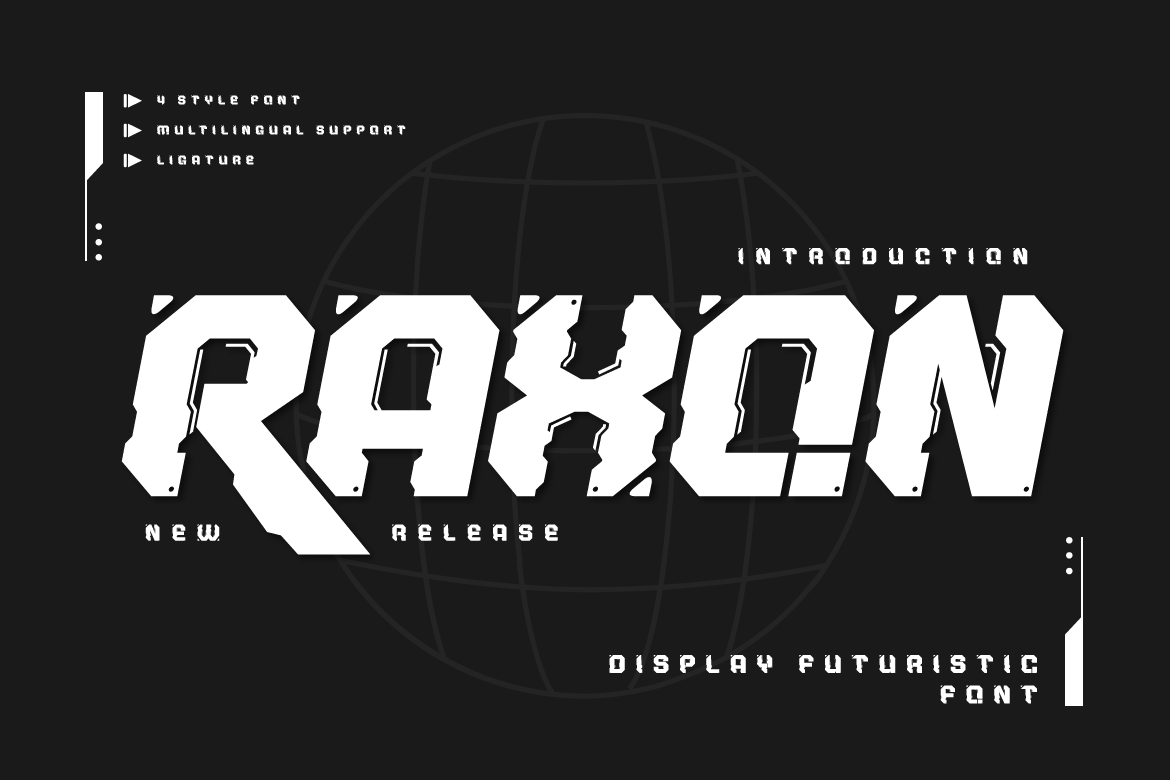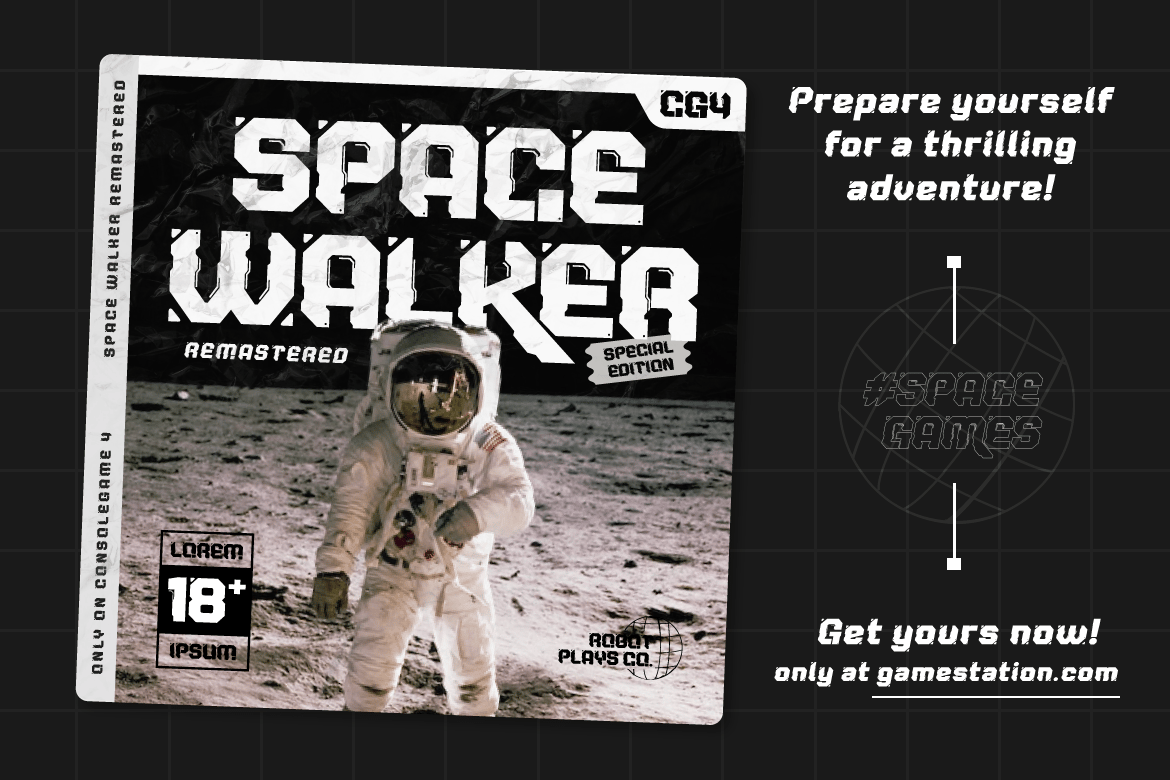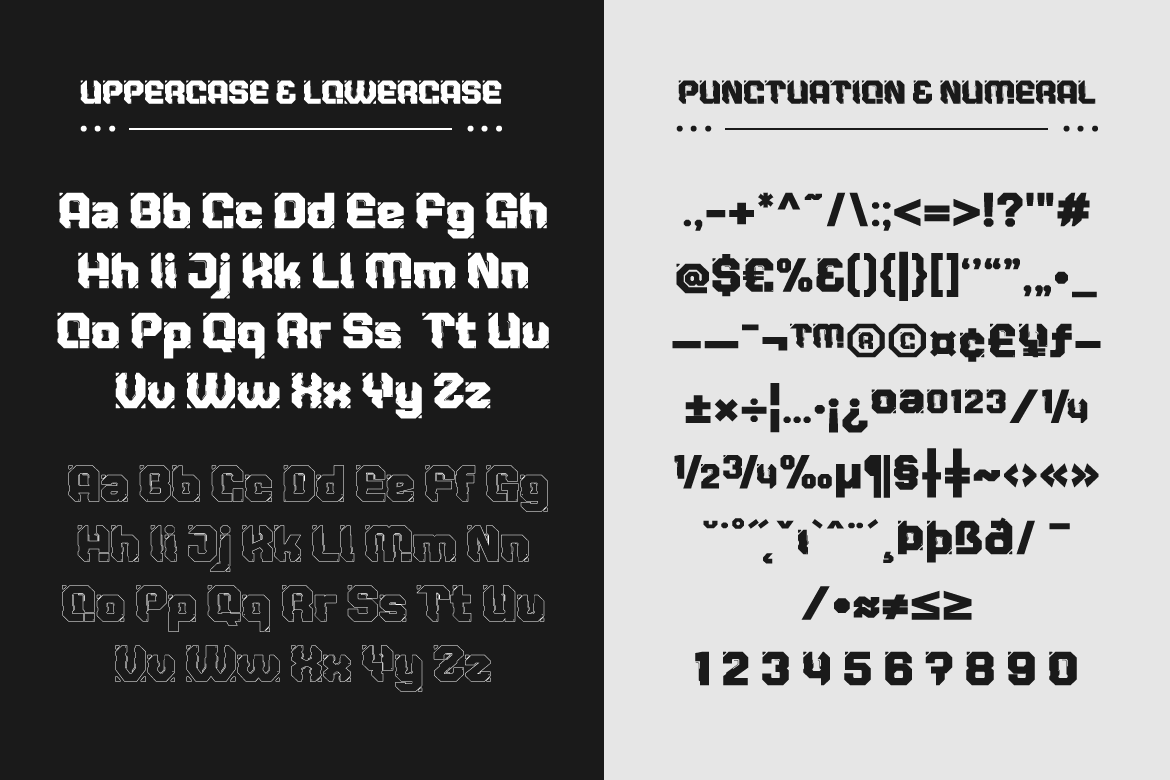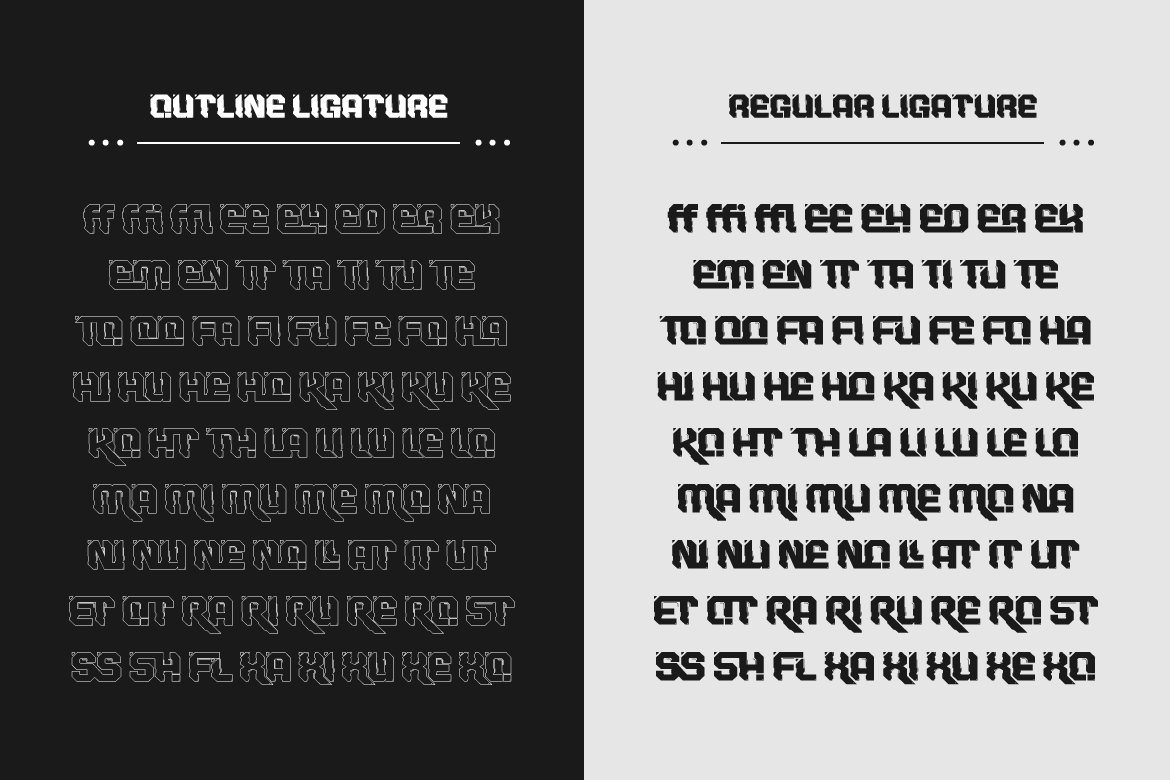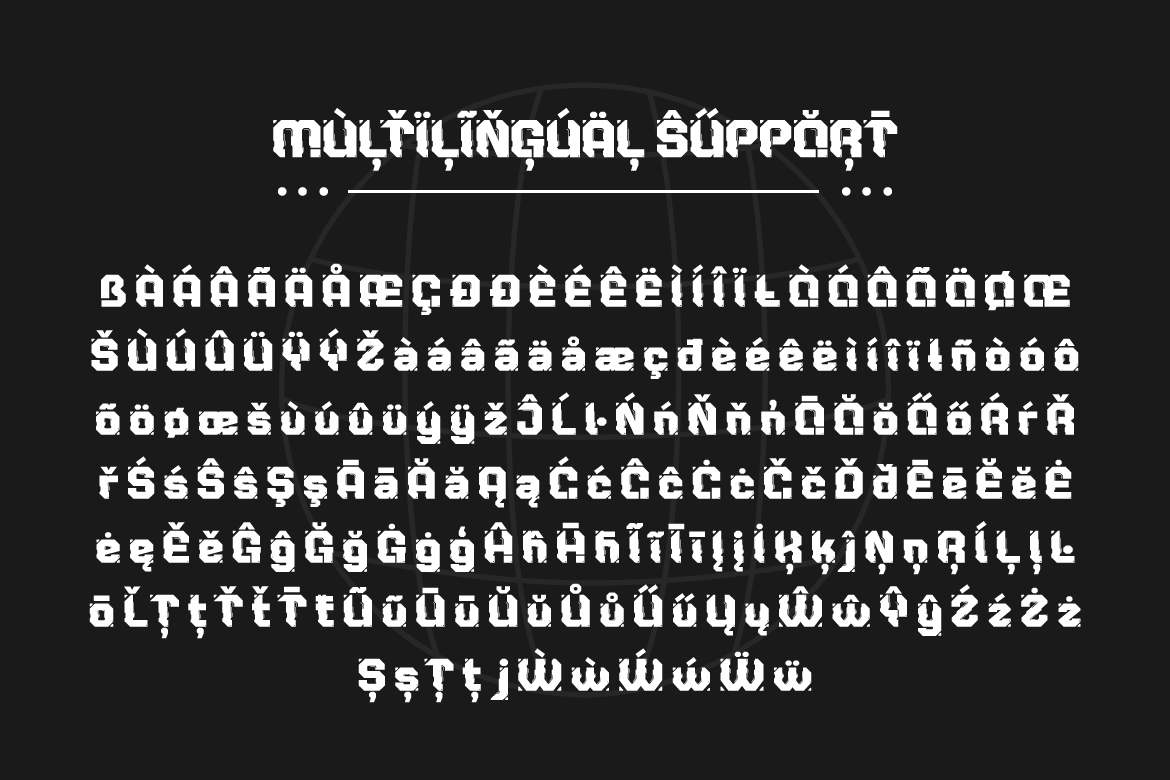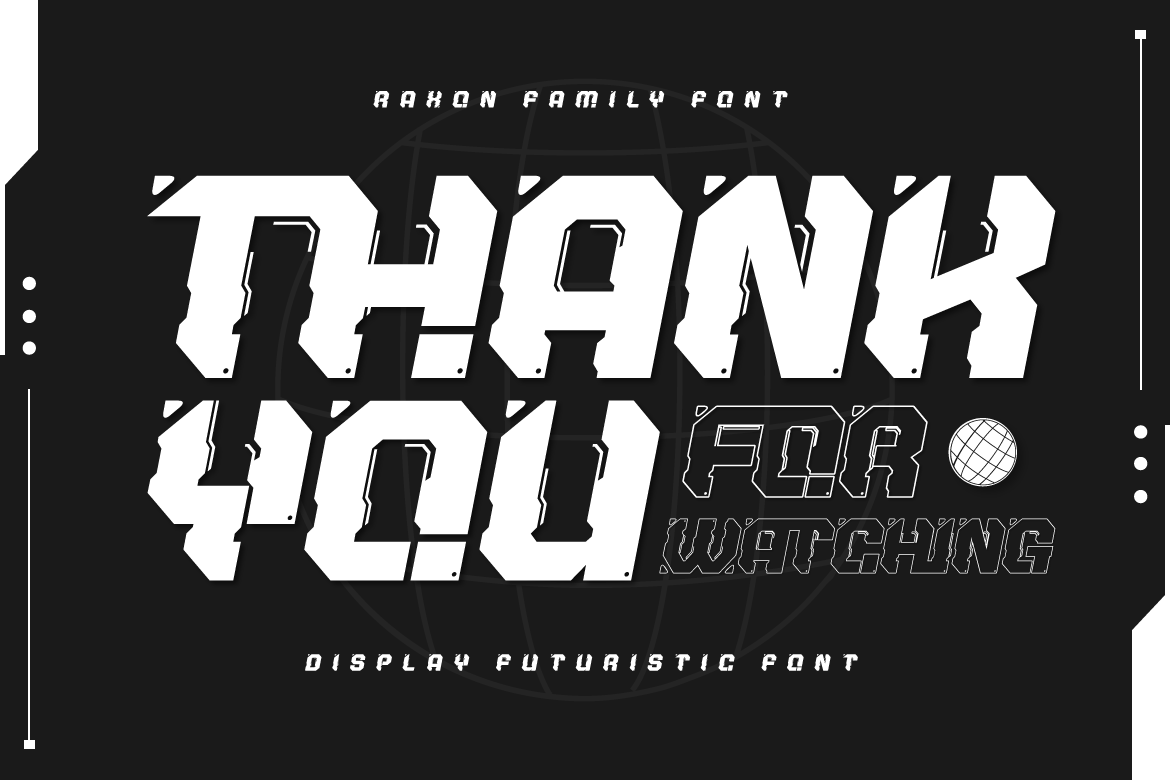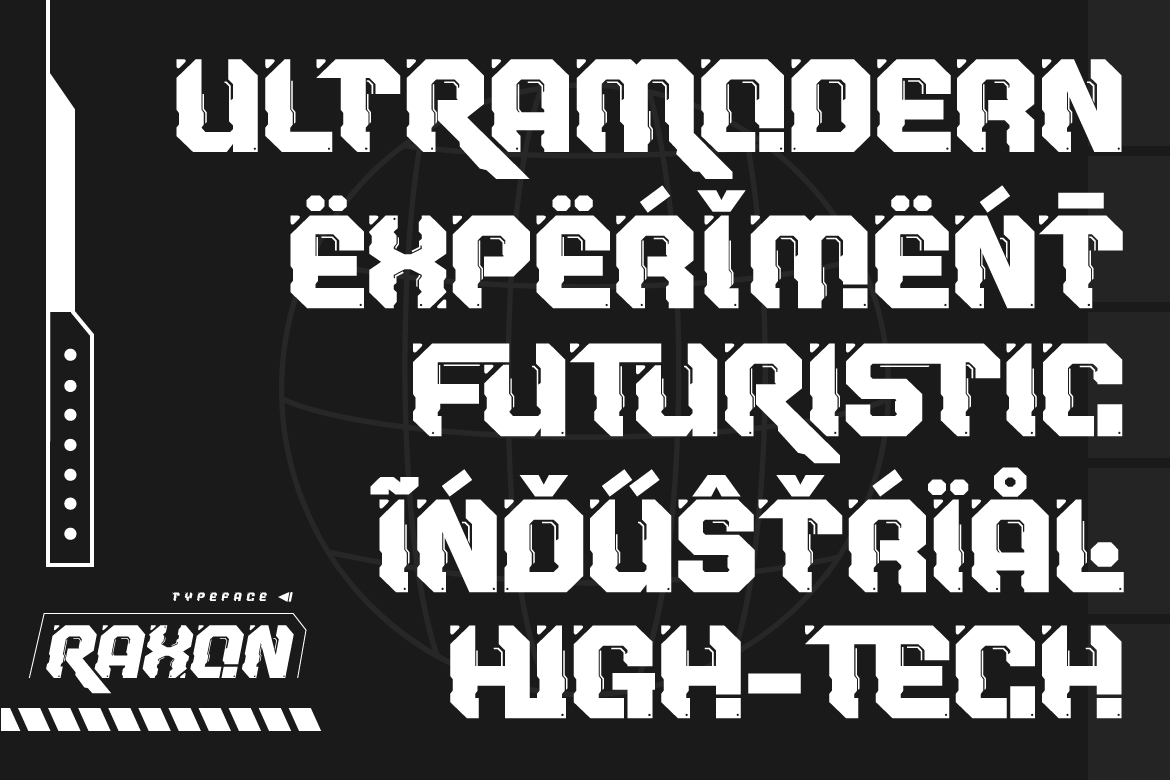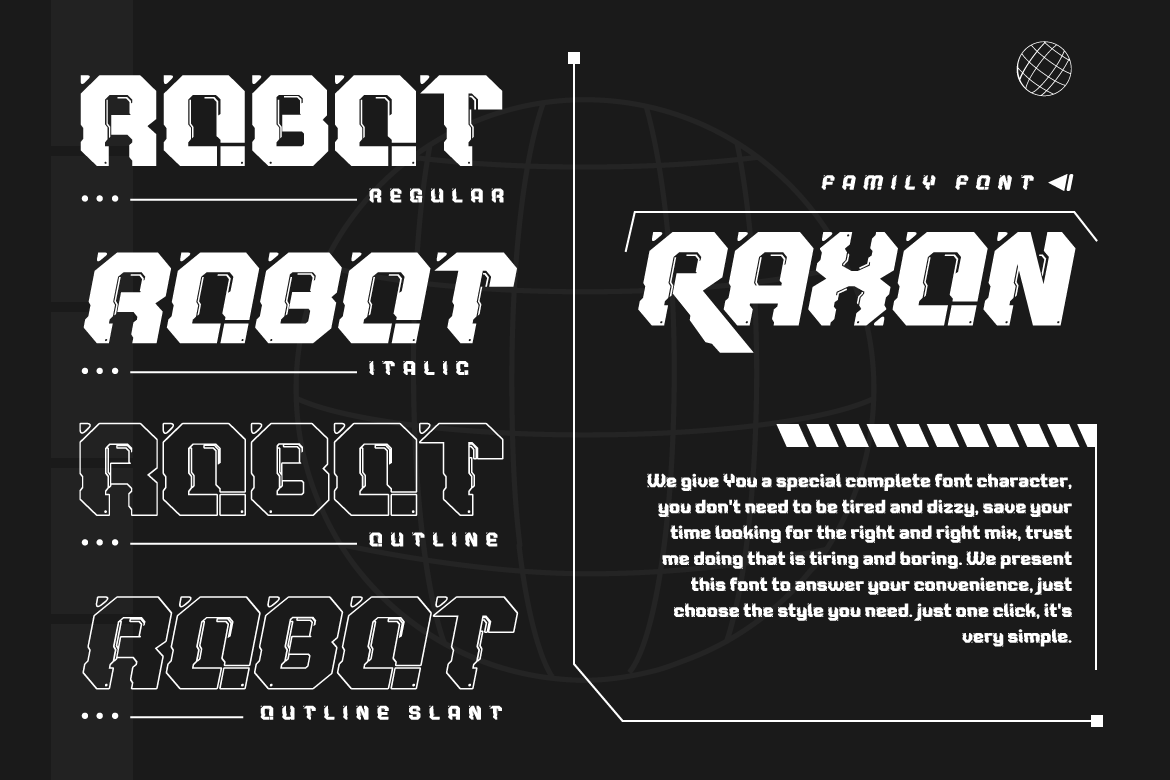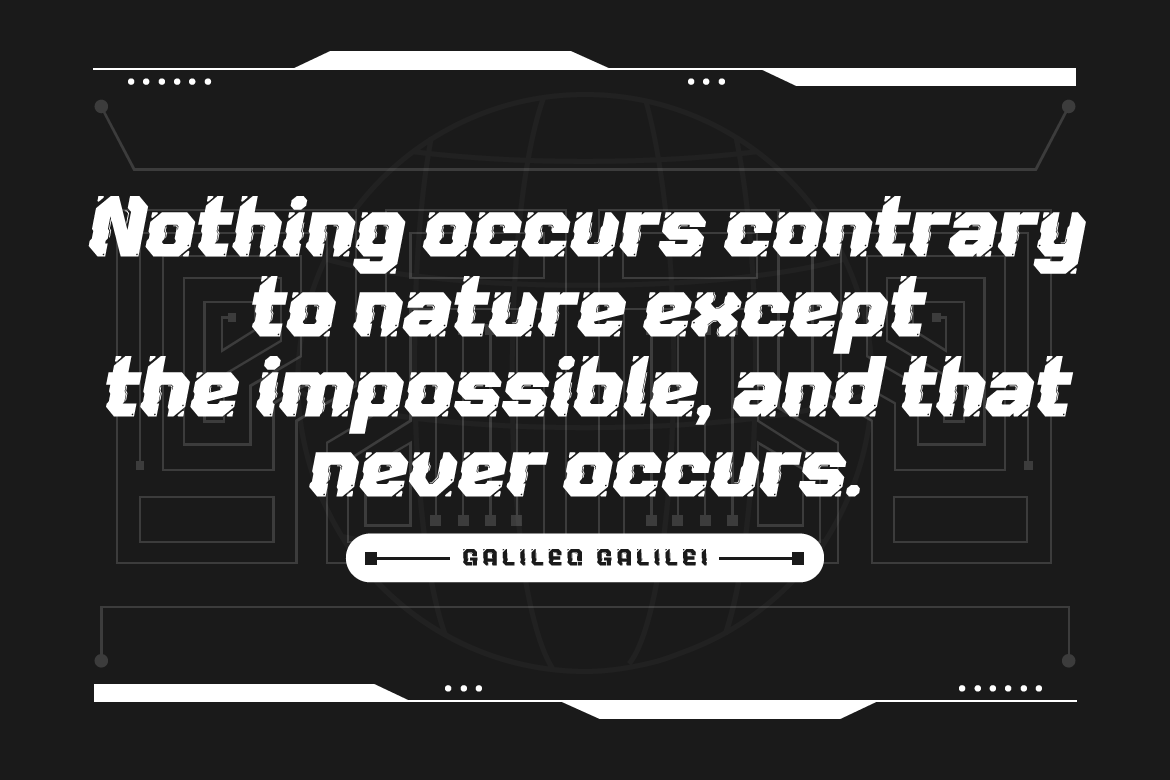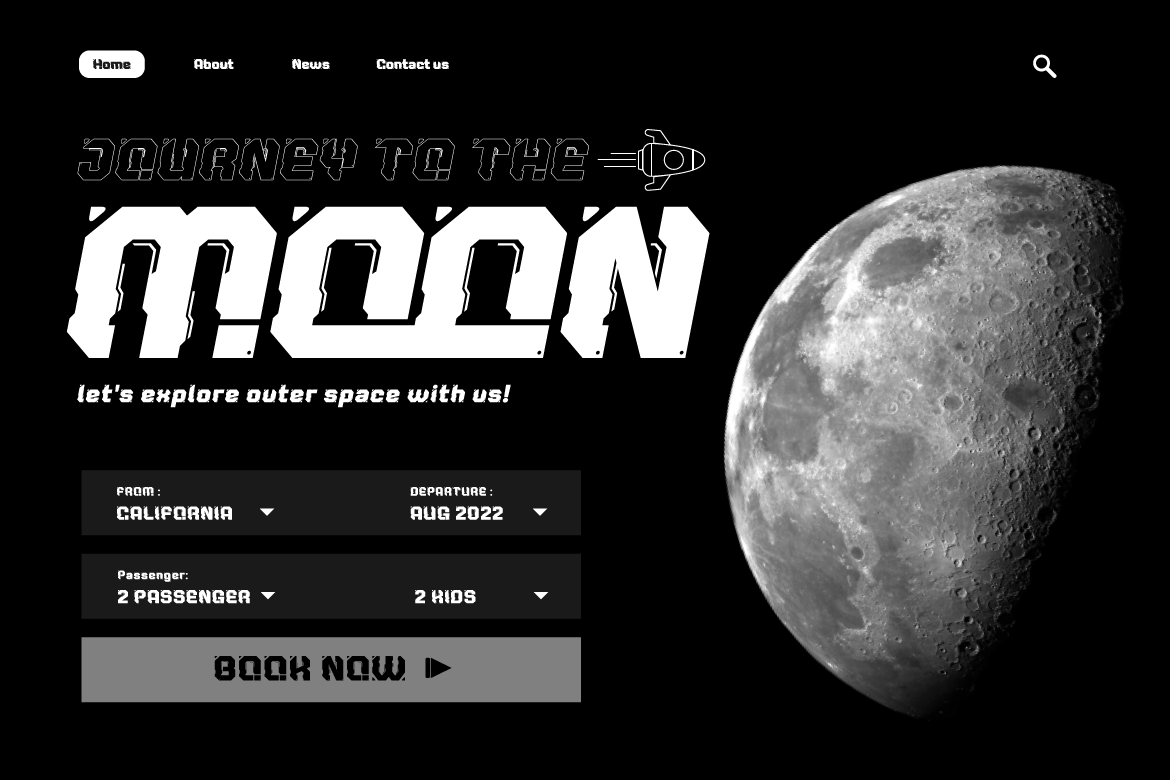
RAXON – Futuristic Font
RAXON is a futuristic mecha typeface. Highly inspired by industrial vibes and future-themed mecha-robots. Font design will make your project more powerful and inspiring. Perfect for headlines, billboards, magazines, websites, titles, posters, branding, thumbnails, creative logos, and many others. We are always passionate about bringing new futuristic typography to market. This time we present a special futuristic font for you.